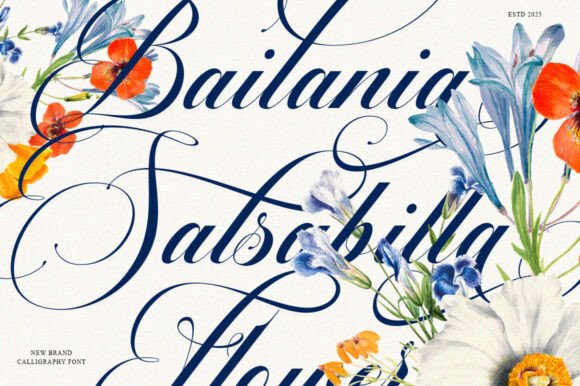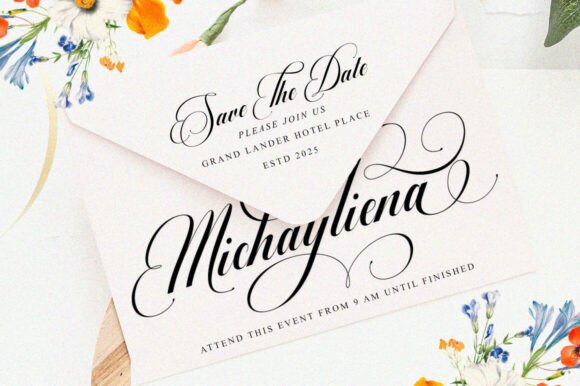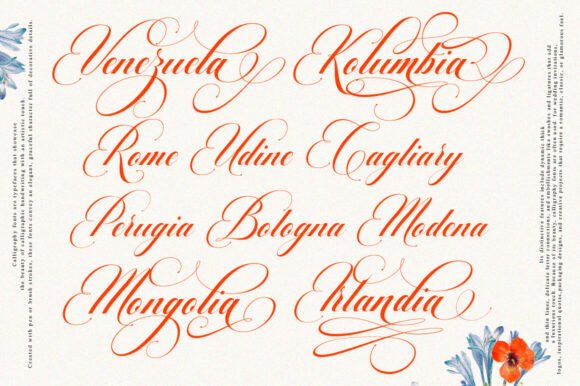
Introduction to Barlimena Font
Have you ever stared at a blank canvas, a blank page, or a blank screen, waiting for the perfect idea to strike? As creatives, we’ve all been there – searching for that elusive spark that will bring our designs to life. For many, the key to unlocking inspiration lies in the perfect font. Enter Barlimena Font, a stunning script & italic font that will transport your designs to new heights of elegance and sophistication.
Whether you’re a seasoned designer or just starting to build your portfolio, Barlimena Font is an invaluable resource that will elevate your creative projects to unprecedented levels. Its soft, refined strokes and distinctly feminine aura make it the perfect addition to any design, from high-end branding to romantic wedding invitations. With its high-quality design and transparent background, you can be sure that your designs will shine with a level of sophistication that’s hard to find in other fonts.
What sets Barlimena Font apart is its ability to add a touch of refinement and poise to even the most mundane designs. With a free download available, you can start experimenting with this beautiful font today and discover the endless possibilities it has to offer. So why settle for ordinary when you can have extraordinary? Download Barlimena Font and unlock a world of creative possibilities!
Key Features of Barlimena Font
- High-quality, professional font design ideal for creative projects and various design resources.
- Features a transparent background, making it easy to overlay on images and other design elements.
- Includes multiple font styles and weights, allowing for versatility and customization in design projects.
- Designed with a clean and modern aesthetic, suitable for a wide range of creative applications, from branding and logos to digital art and typography.
Honest Review: Barlimena Font
I recently stumbled upon the Barlimena Font and I must say, it’s been a game-changer for my creative projects. As a designer, I’m always on the lookout for high-quality design resources that can elevate my work and this font definitely delivers.
- ✨ Elegant and sophisticated design: The Barlimena Font has a beautiful, classic feel to it that makes it perfect for luxury or high-end branding projects.
- ✨ Versatile: It comes in a range of weights and styles, making it suitable for various design applications, from logos to typography-heavy designs.
However, there are some limitations:
- ⚠️ Limited language support: Unfortunately, the Barlimena Font doesn’t support a wide range of languages, which may be a concern for designers working on international projects.
Overall, I’m really impressed with the Barlimena Font and I would highly recommend it to designers looking for a high-quality, elegant font with a transparent background. It’s a fantastic design resource that can add a touch of sophistication to any creative project.
The Barlimena Font is ideal for use in creative projects that require a high-quality, elegant font. It’s perfect for use in logo designs, business cards, and other design resources that require a touch of sophistication.
Tips for Getting the Most Out of the Barlimena Font
To get the most out of the Barlimena Font, use it on a transparent background to make it stand out. You can also pair it with other fonts to create a unique and eye-catching design. Experiment with different font sizes and styles to find the perfect combination for your creative project.